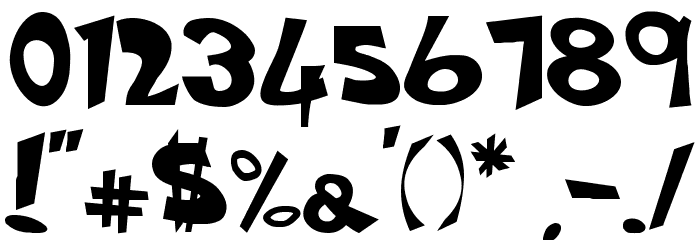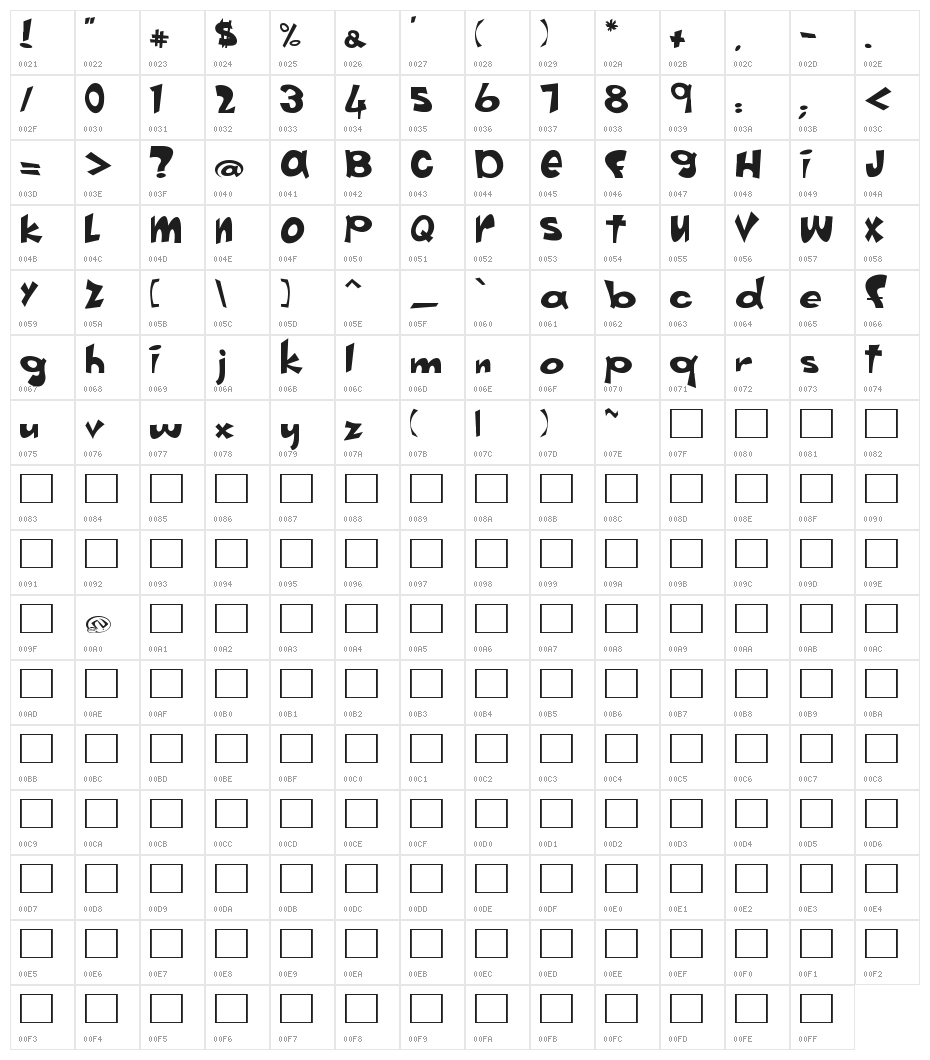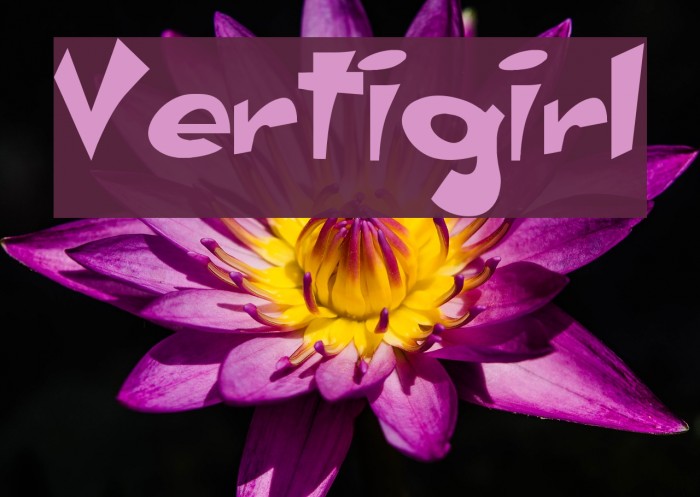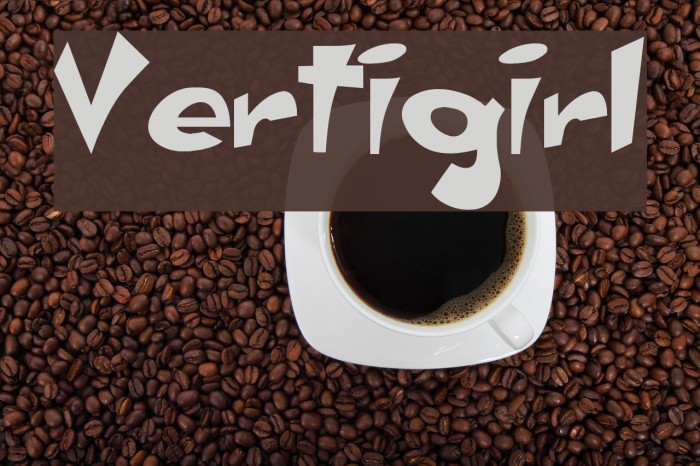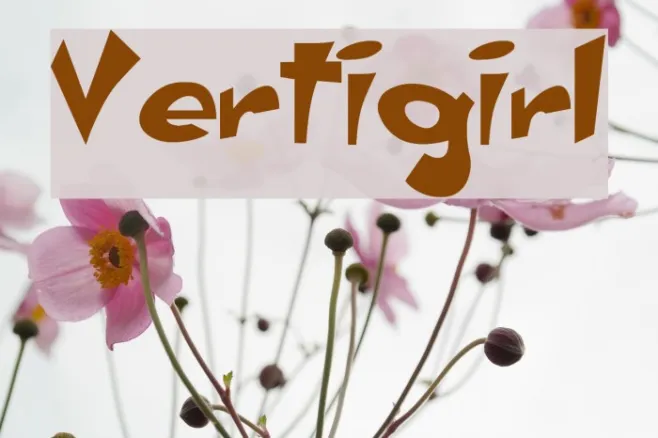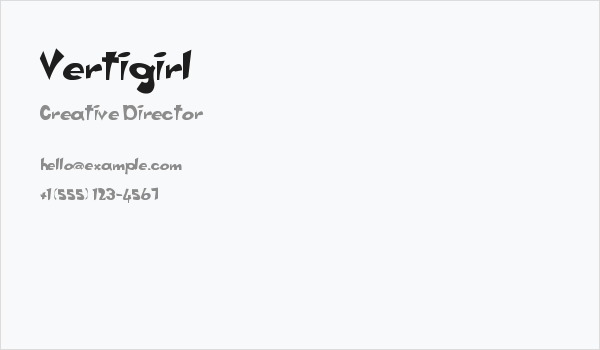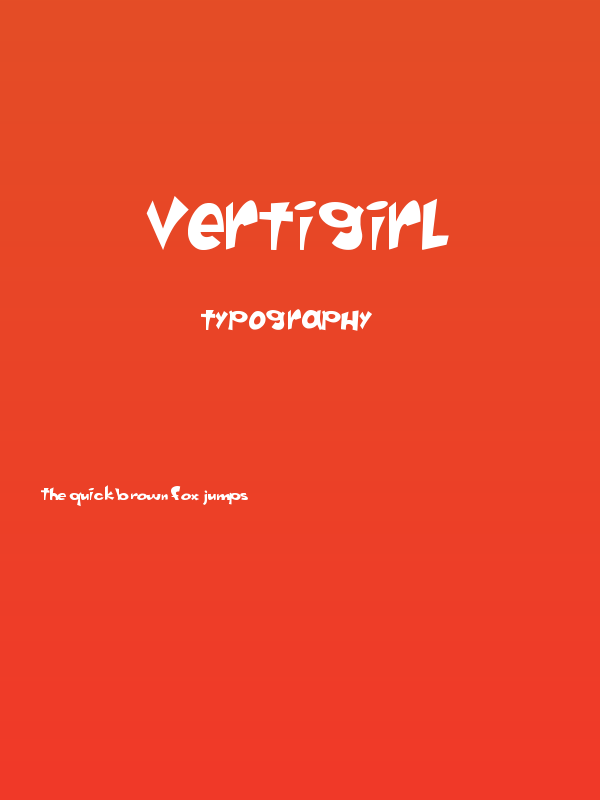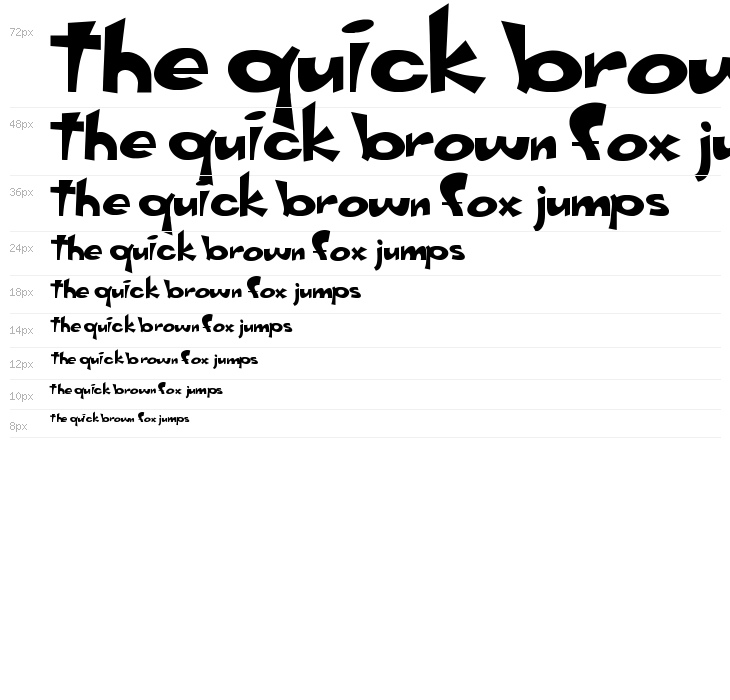
Vertigirl Font
Vertigirl Description
This font features a playful and whimsical design with exaggerated curves and angles, creating a sense of movement and energy. The characters are bold and dynamic, with a slightly irregular and hand-drawn appearance that adds to its charm. The uppercase and lowercase letters maintain a consistent style, while the numbers and special characters complement the overall aesthetic. This font is ideal for projects that require a fun and engaging visual impact, such as children's books, posters, or creative branding.
| Proposed Projects | Ideal for children's books, playful posters, creative branding, and any project needing a fun, engaging style. |